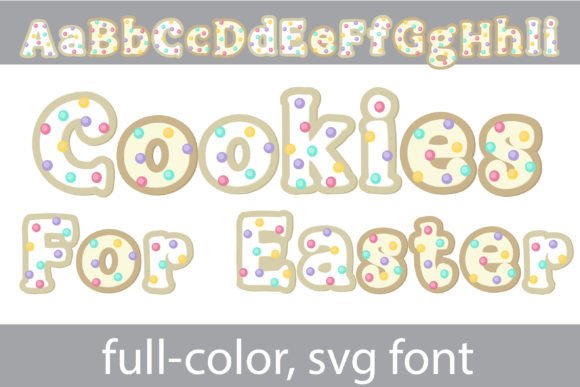
Cookies for Easter Font: A Delicious Addition to Your Designs
Are you looking for a unique and playful font to add a touch of personality to your Easter-themed designs? Look no further than the Cookies for Easter Font, a full-color font featuring crispy cookies with pastel frosting and sprinkles. In this article, we’ll take a closer look at this delightful font and explore its features, benefits, and uses.
Font Features
The Cookies for Easter Font is an OpenType full-color (SVG) font that comes with a range of exciting features. Some of its key features include:
- Crispy cookie designs: Each letter of the font features a crispy cookie design with pastel frosting and sprinkles, perfect for Easter-themed designs.
- Alt case: The font includes an alternative case of additional colors for each letter, which can be accessed through your system or Silhouette’s glyph map.
- Full-color SVG: The font uses SVG technology, which allows it to be scaled to any size without losing quality.
- Easter-themed designs: The Cookies for Easter Font is perfect for Easter-themed designs, such as Easter cards, invitations, and decorations.